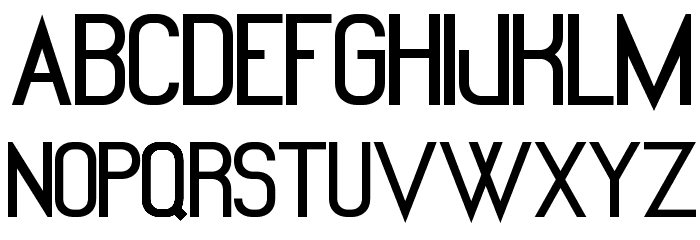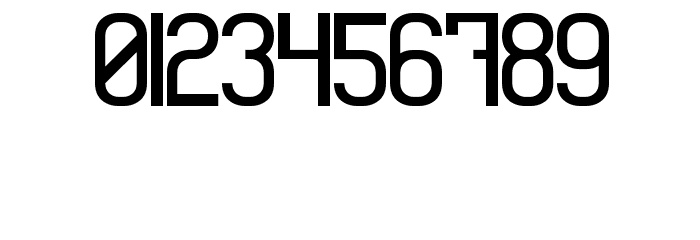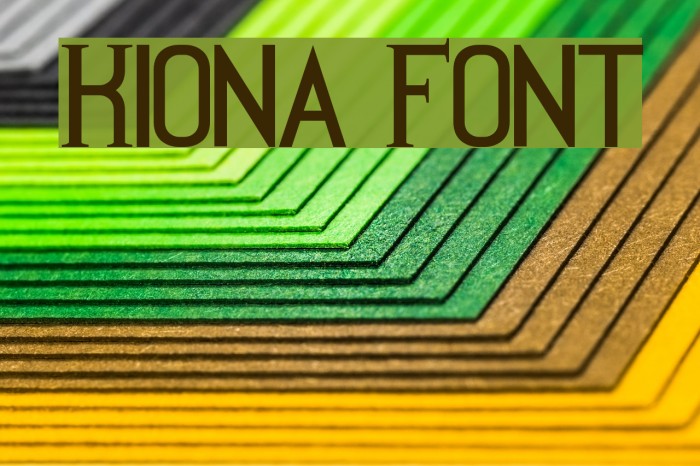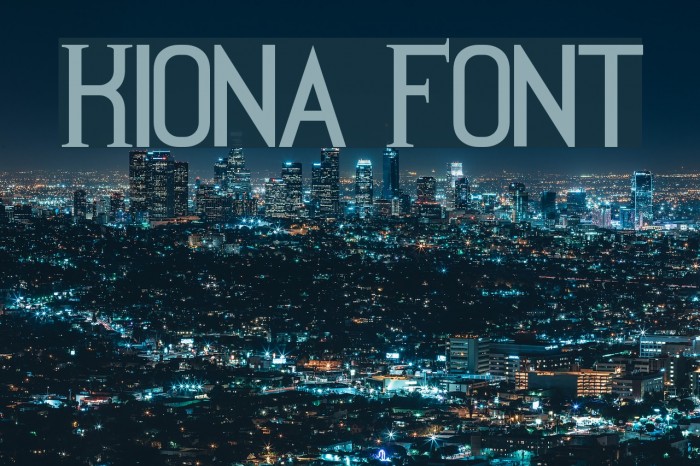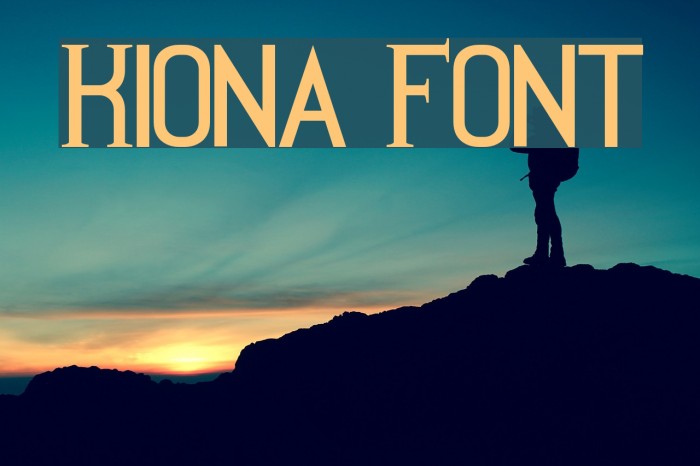
Kiona Font
This font presents a modern and geometric aesthetic with clean lines and sharp edges. The uppercase letters are bold and structured, featuring a consistent stroke width that conveys a sense of stability and strength. The lowercase letters maintain the same geometric style, ensuring uniformity throughout the typeface. The numerals are designed with the same attention to detail, offering a cohesive look. The overall design is minimalistic yet impactful, making it suitable for a variety of contemporary applications.
A modern, geometric font with clean lines and consistent stroke width.
- Proposed Projects: Ideal for branding, headlines, posters, and digital media where a modern and bold statement is needed.
- Use Case: Headlines, Logos, Branding